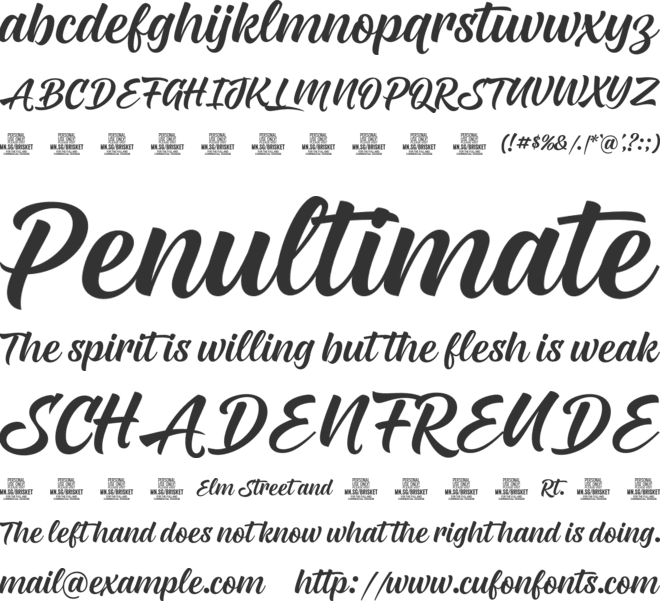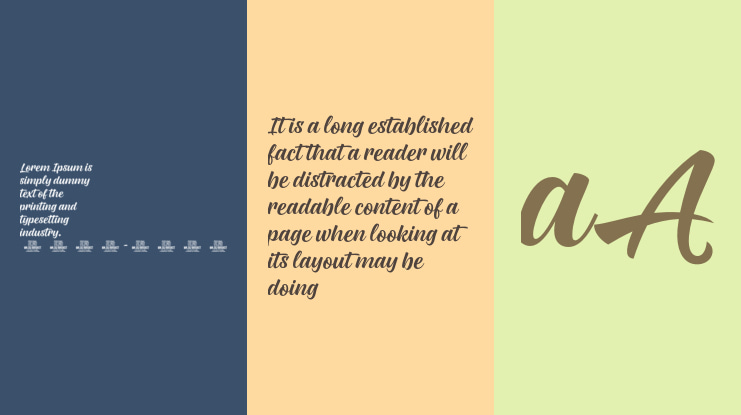
Brisket Script PERSONAL USE Font
Mans Greback
NOTE: This font is for PERSONAL USE ONLY!To purchase a commercial license, visit:https://www.mansgreback.com/product/brisket-scriptBrisket Script is a friendly, flowing script with a warm, handcrafted feel. The lettering is smooth and relaxed, with rounded strokes and a steady rhythm that makes it easy to read while still feeling personal. It carries a casual confidence, like a painted shop sign or a handwritten note pinned in a window.For questions, please visit https://mansgreback.com/faq